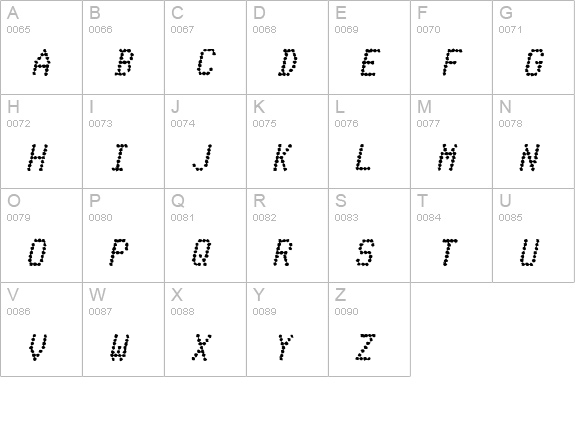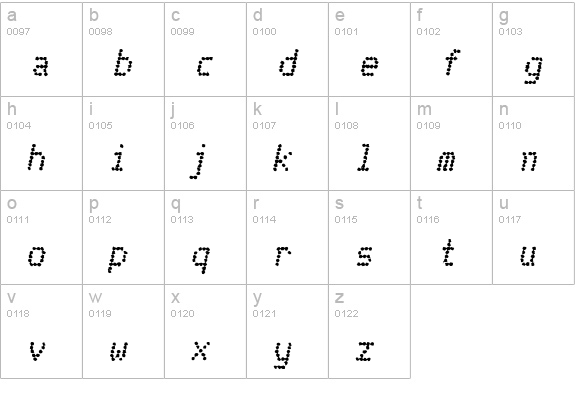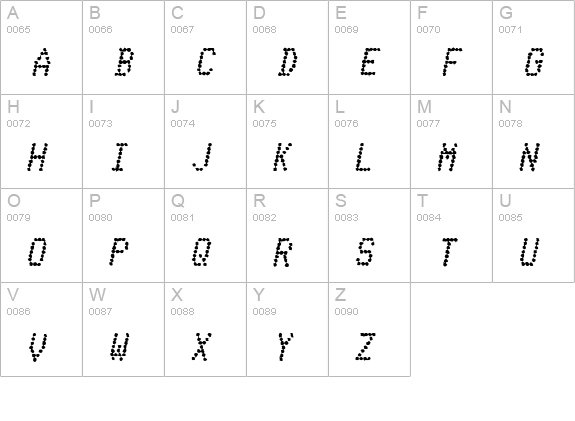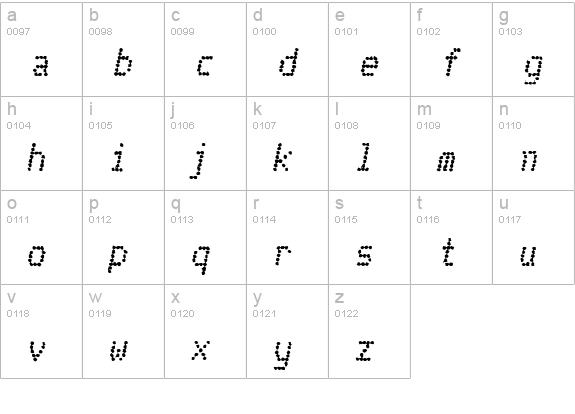
Telidon Ink Bold Italic Font Details
Telidon Ink Bold Italic is a strong, high-contrast, italic variant in the Telidon typeface family \xE2\x80\x94 well suited to headlines, attention-grabbing titles, and strong calls-to-action.
Telidon Ink Bold Italic font is a dynamic and expressive typeface that exudes energy and creativity. Its bold and italic design adds a touch of flair and sophistication to any project, making it perfect for eye-catching headlines, posters, and branding materials. The strong and distinctive strokes of this font give it a modern and edgy look that is sure to make a statement. What sets Telidon Ink Bold Italic font apart is not only its unique design but also the fact that it is available for free download at FontsMarket.com. This means that you can easily access and use this striking font in your designs without any cost, making it a valuable addition to your font collection. Whether you are a graphic designer, artist, or simply looking to elevate your projects with a bold and impactful font, Telidon Ink Bold Italic is a fantastic choice that won't break the bank. Download it today and unleash your creativity with this stylish and versatile typeface.